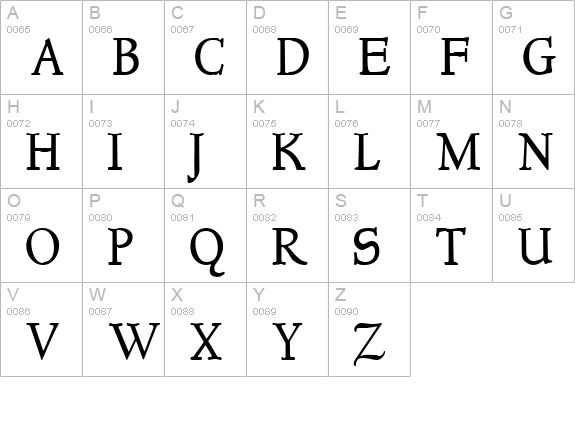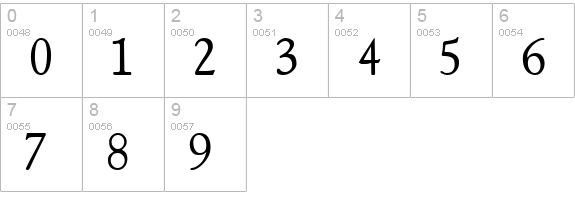
NewStyleTitling Font Details
Introducing NewStyleTitling font, a modern and sophisticated typeface perfect for adding elegance and style to your designs. This unique font features sleek lines and sharp edges, making it ideal for headings, titles, and logos. With its sleek and contemporary look, NewStyleTitling font is sure to make a statement in any project. What's even better is that this font is completely free to download at FontsMarket.com! That's right, you can easily access this stunning typeface without any cost. Whether you're working on a branding project, website design, or print materials, NewStyleTitling font will elevate your work to the next level. Don't miss out on this fantastic opportunity to enhance your designs with this beautiful and versatile font. Download NewStyleTitling font today and let your creativity shine!